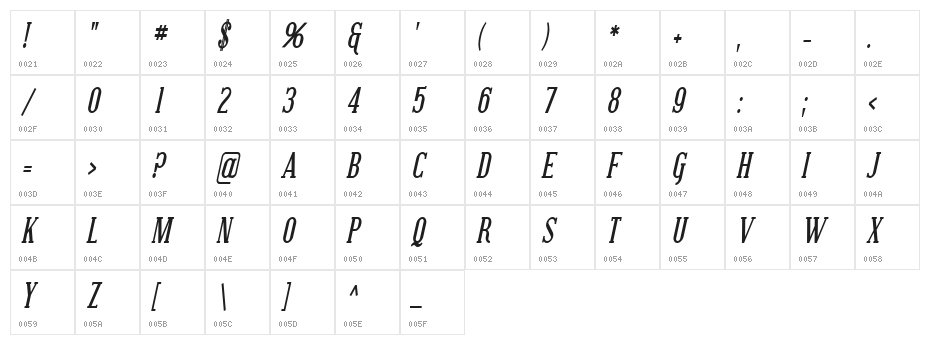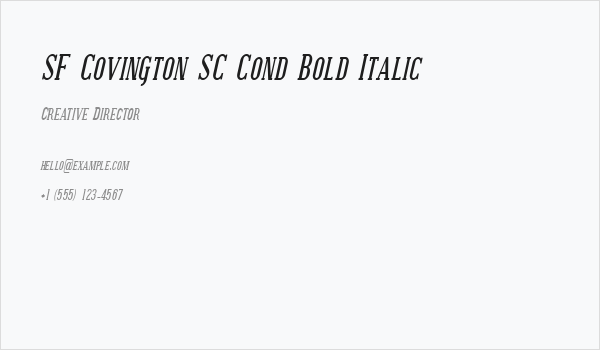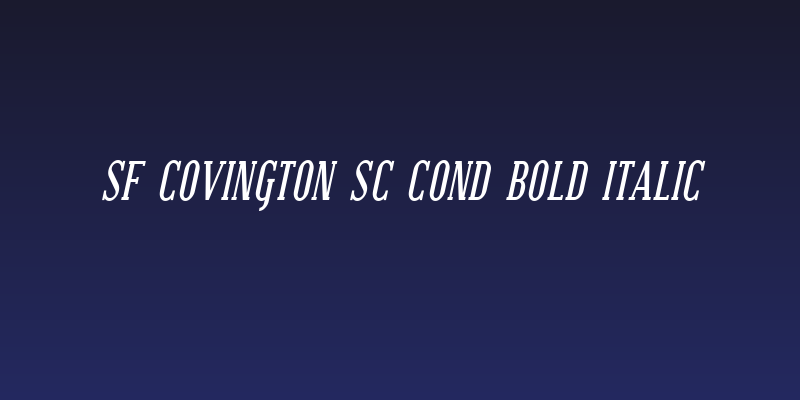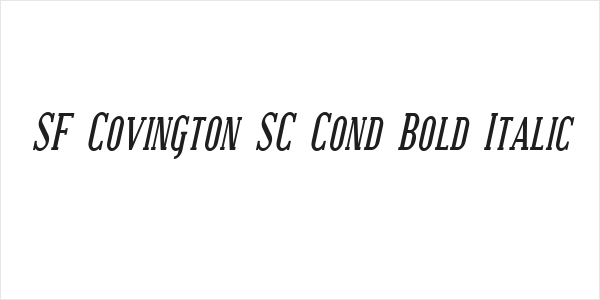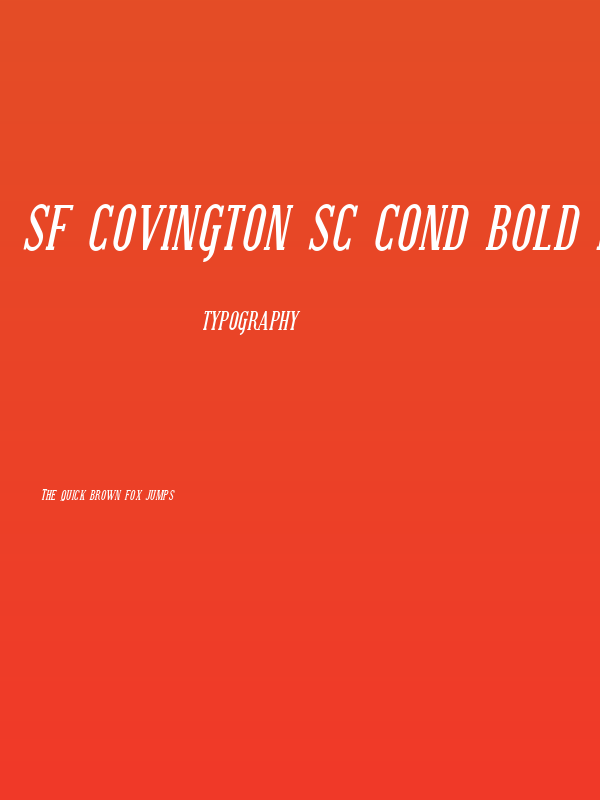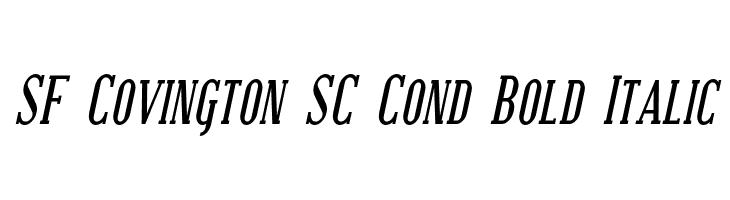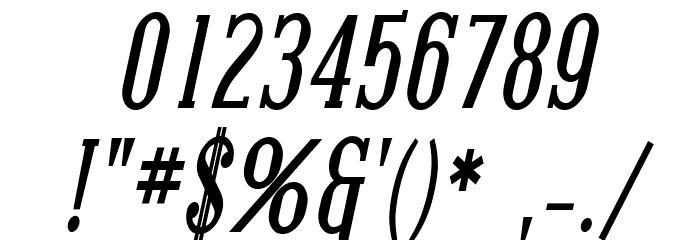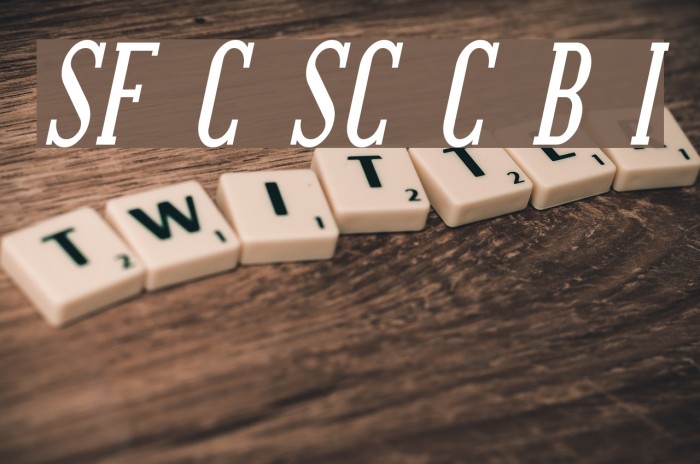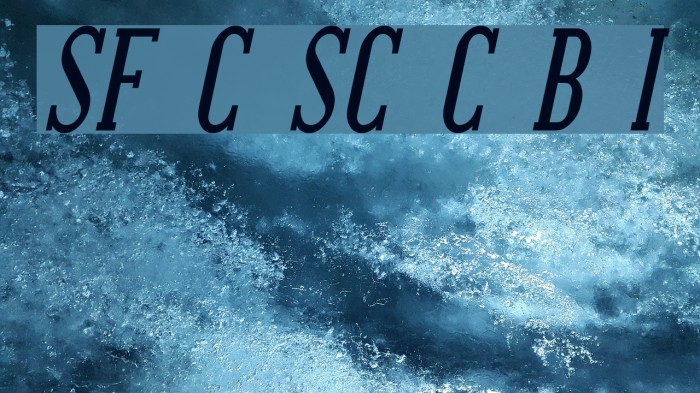
SF Covington SC Cond Bold Italic Font
SF Covington SC Cond Bold Italic Description
This font features a bold and italicized style with a condensed width, giving it a strong and dynamic appearance. The characters are elongated and slightly slanted, adding a sense of movement and urgency. The strokes are thick and consistent, providing a robust and impactful look. The uppercase letters are particularly striking, with sharp serifs and a clean, modern finish. The numerals and special characters maintain the same bold and italicized style, ensuring consistency across all text elements. This font is well-suited for making a statement, whether in headlines, logos, or other prominent text applications.